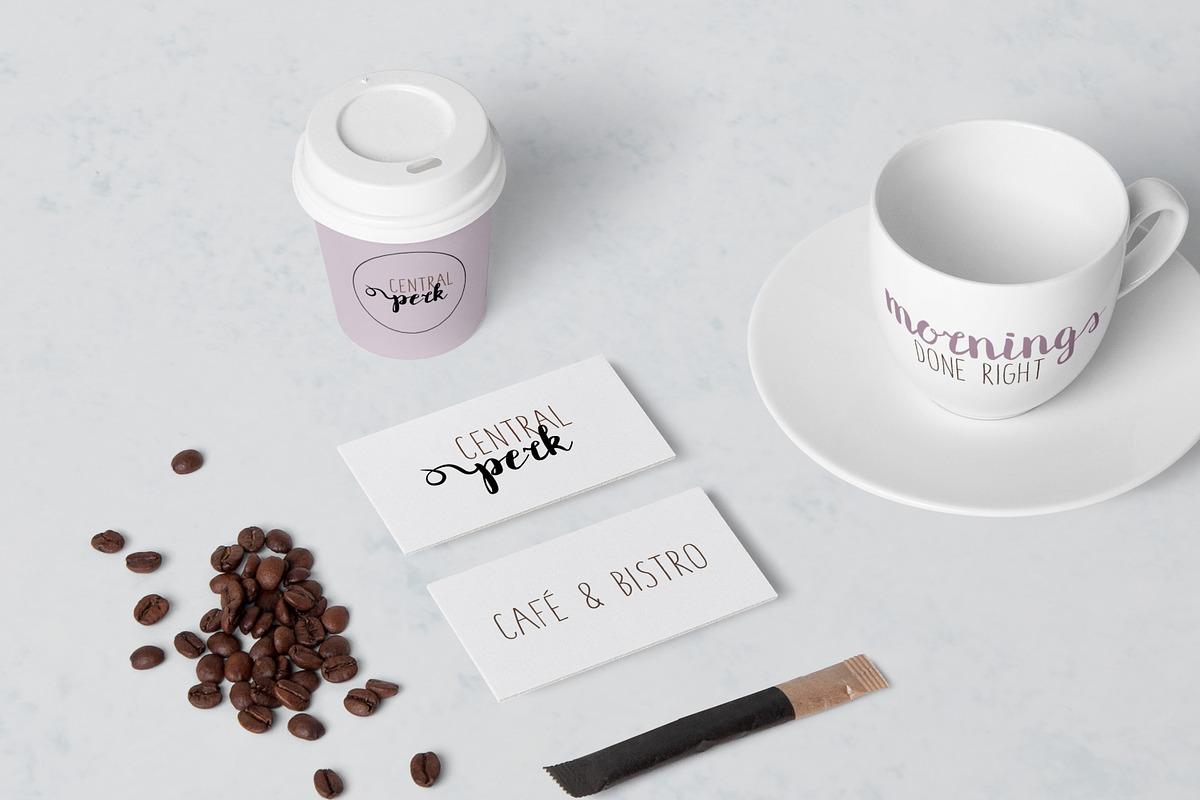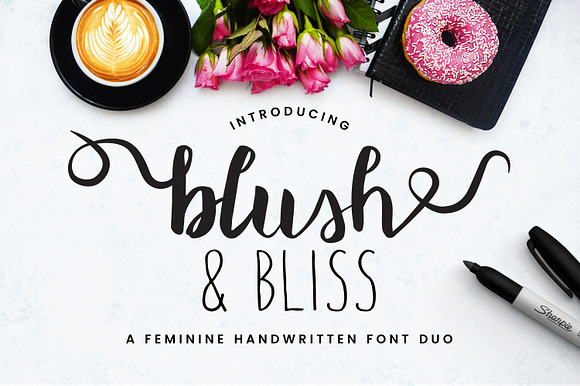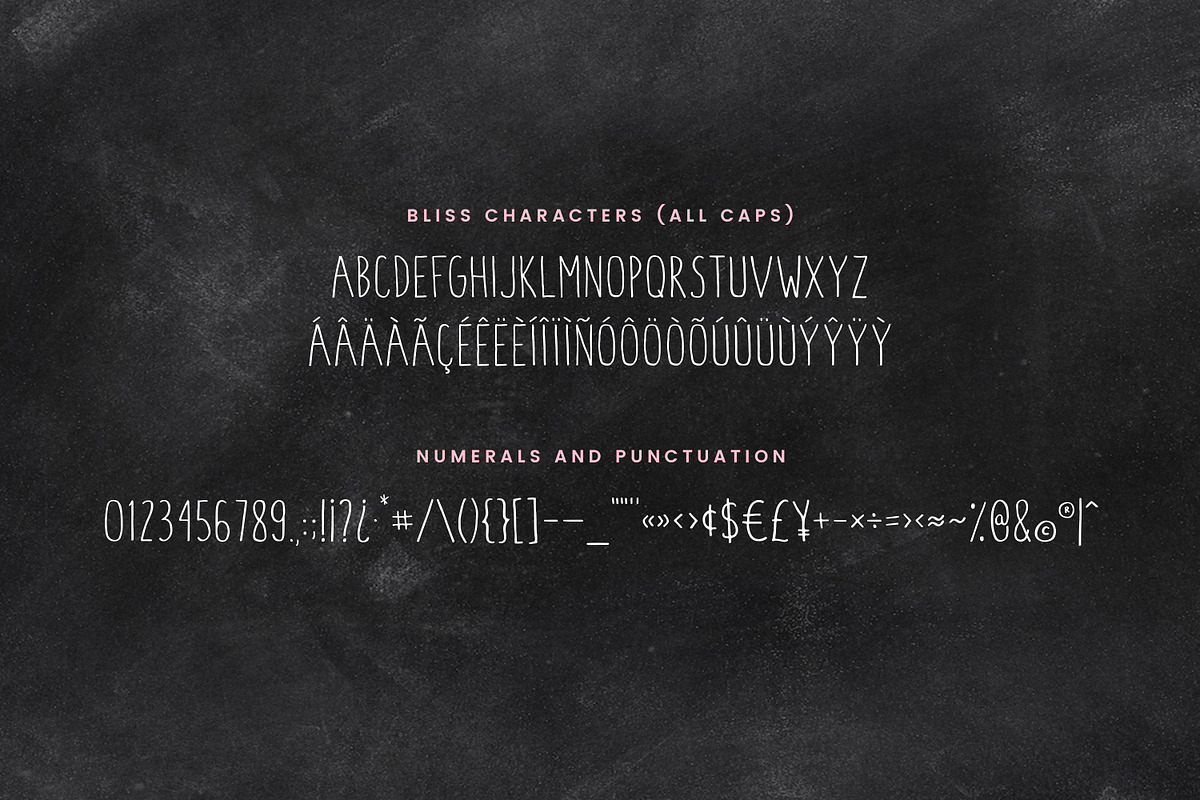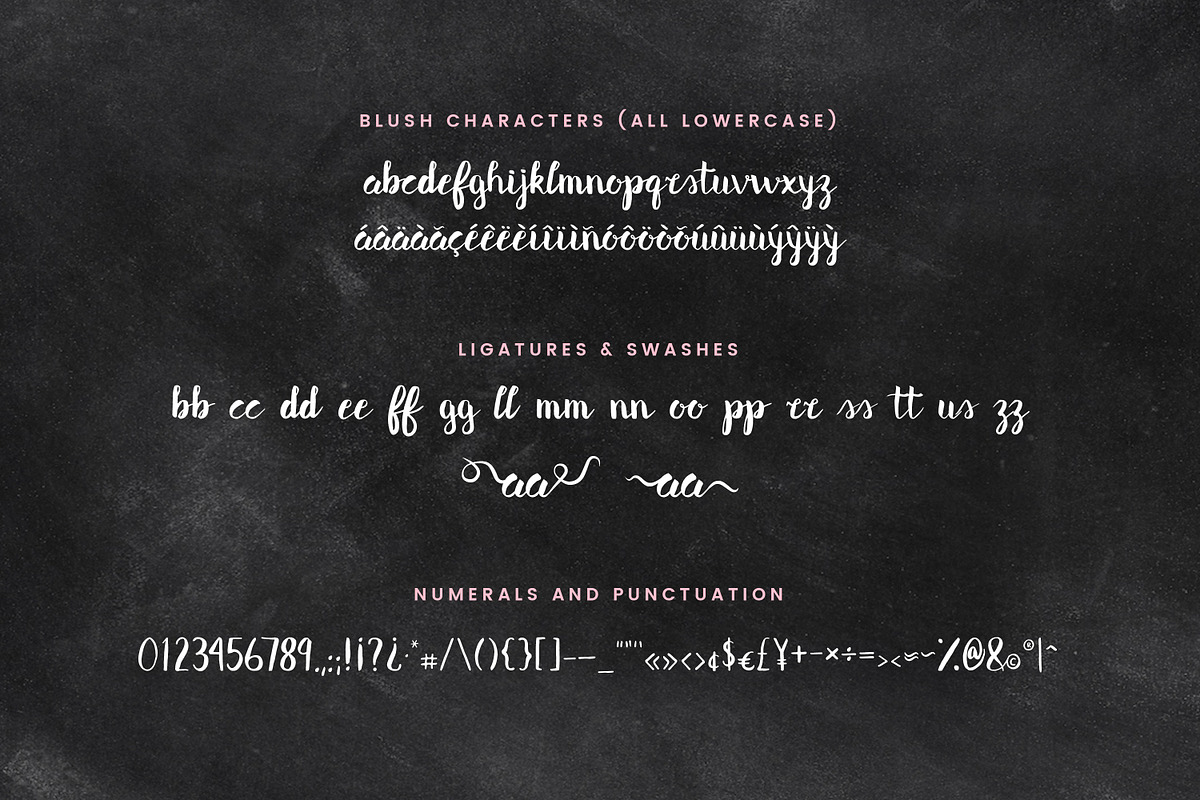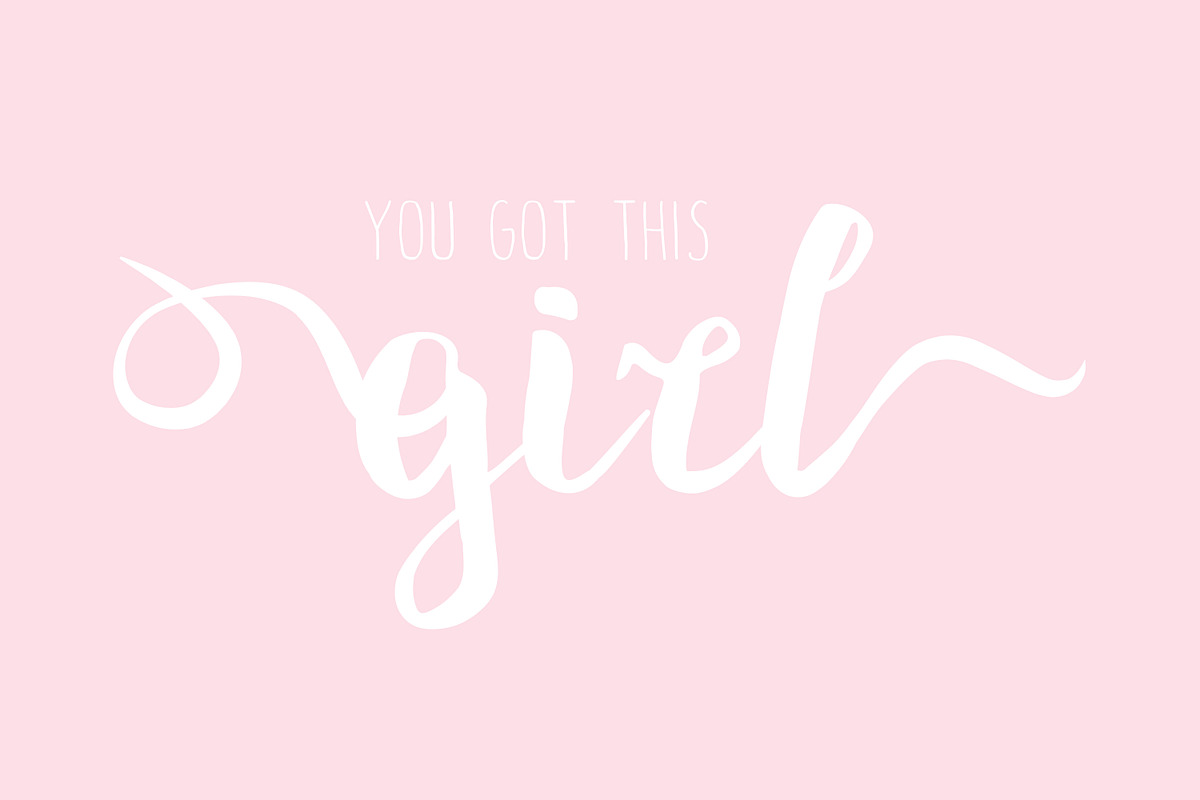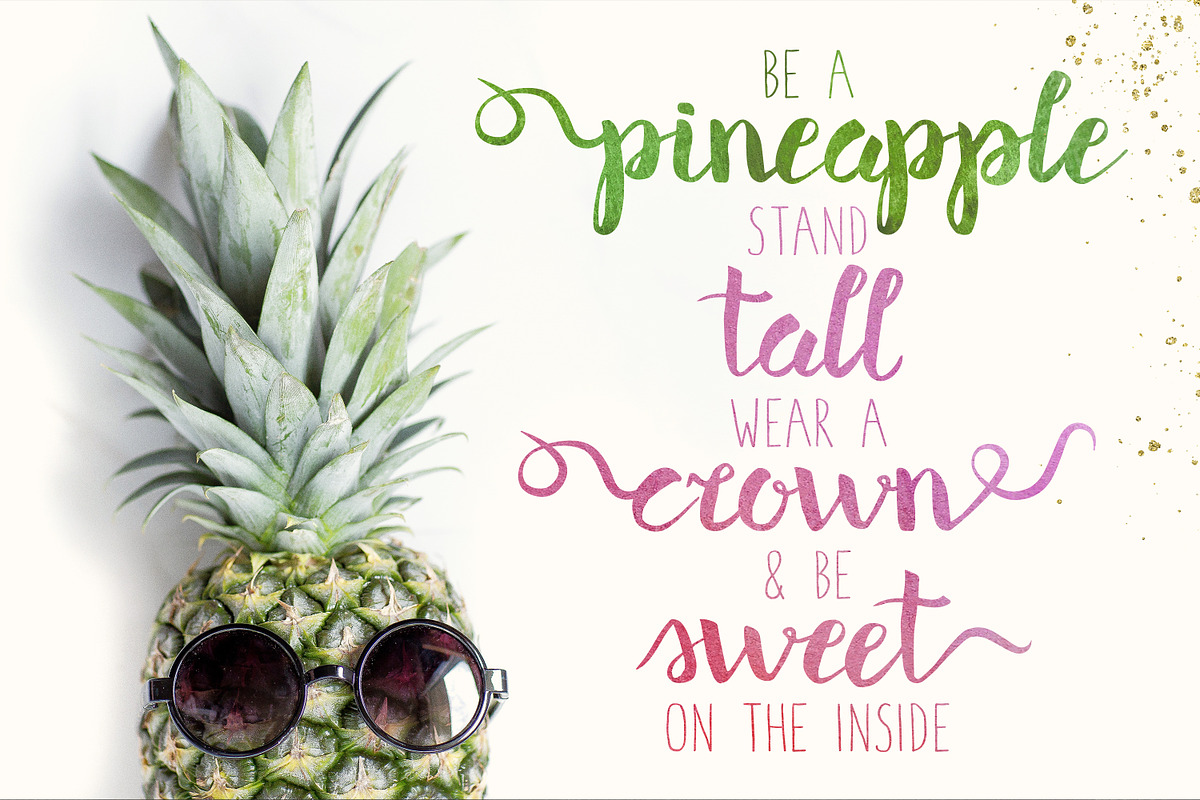
Blush & Bliss | A Font Duo
Blush & Bliss is a feminine handwritten font duo for all of your graphic design needs! Featuring a playful brush script, and a quirky all caps sans serif, this duo can add style and joy to any of your designs.
- Brush font includes two sets of front and end swashes accessible through caps and glyphs panel.
- Bliss Regular
- Blush Regular